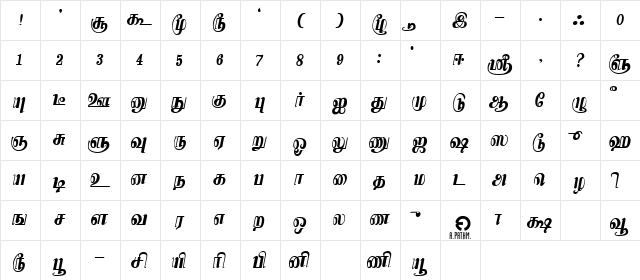
Kamaas Regular
Design Context for Kamaas Typeface
Kamaas takes a measured approach to typography — its balanced proportions and neutral character make it a reliable workhorse for both digital and print work.